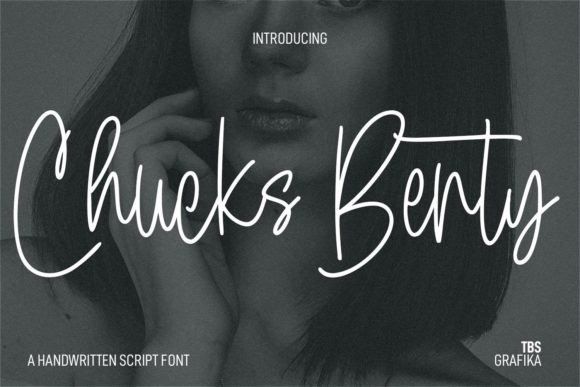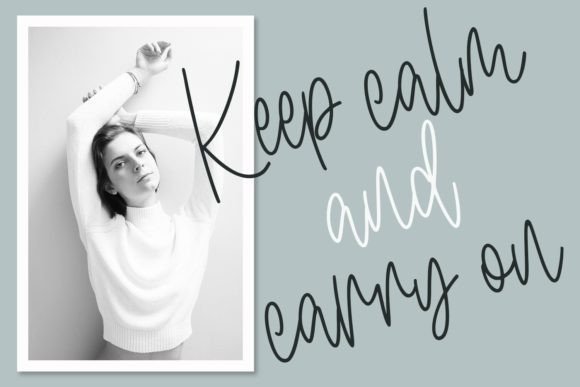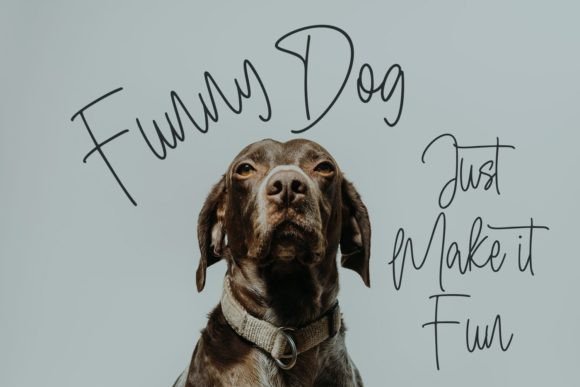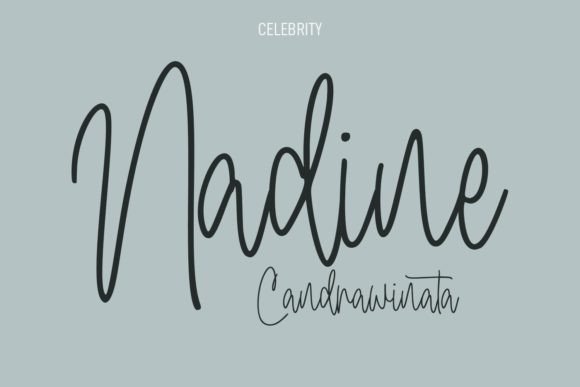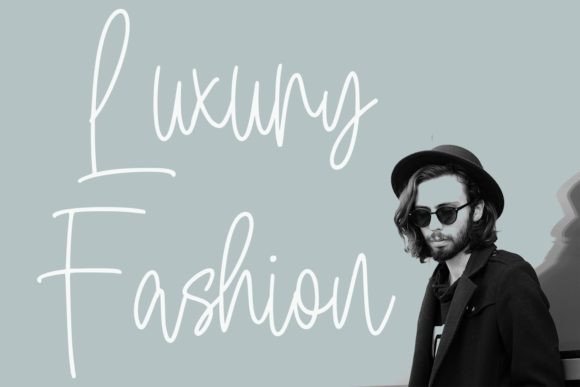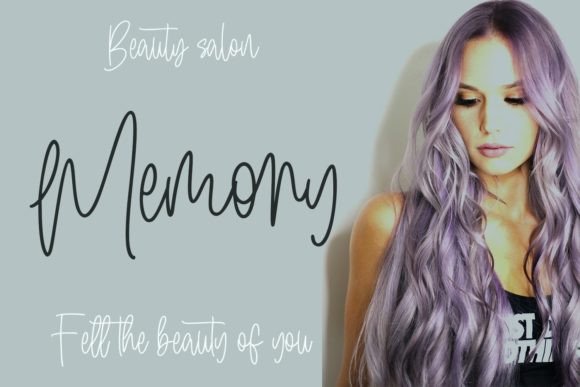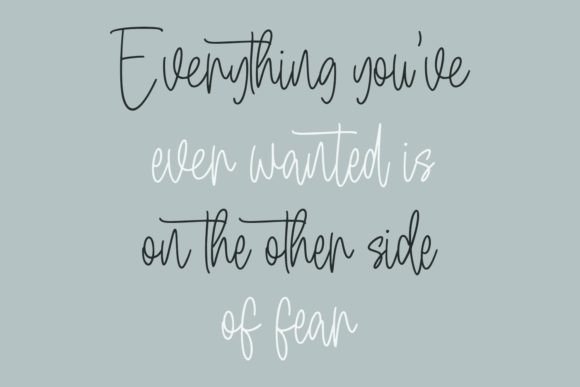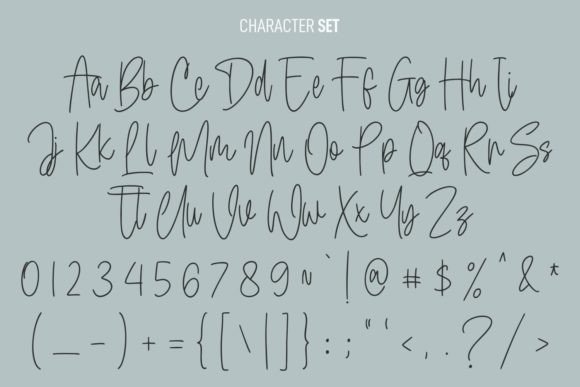
Chucks Berty Font
Chucks Berty is more than just a font; it’s a statement. This modern and stylish handwritten typeface is a valuable addition to any designer’s toolkit. Its versatility knows no bounds, making it the perfect choice for a wide array of projects. Regardless of the topic or theme, Chucks Berty effortlessly infuses a touch of sophistication and creativity into your designs.
What sets Chucks Berty apart is its contemporary flair and unique handcrafted charm. The carefully crafted characters and fluid strokes give your text a sense of authenticity, making it appear as though it was expertly penned by hand. This font adds a personalized touch to your creations, making them stand out in a sea of generic designs.
Whether you’re designing a sleek logo for a high-end brand, creating eye-catching social media posts, or crafting elegant wedding invitations, Chucks Berty is the go-to choice. Its modern aesthetic appeals to a wide audience, making your message easily accessible and engaging. The font’s stylish demeanor makes it suitable for both digital and print media, ensuring your designs look impeccable across various platforms.
Chucks Berty doesn’t just stop at aesthetics; it enhances the overall user experience. Its readability ensures that your audience can effortlessly absorb the content, while its stylish appearance elevates the visual appeal. Whether you’re working on a website, a magazine layout, or a promotional banner, this font guarantees a polished and professional look.
Moreover, Chucks Berty’s adaptability knows no bounds. It seamlessly integrates with other design elements, allowing you to create cohesive and visually pleasing compositions. Experiment with different colors, backgrounds, and layouts to unlock the font’s full potential. Its clean lines and contemporary vibe make it easy to pair with illustrations, photographs, and graphic elements, adding depth and character to your designs.
In summary, Chucks Berty is more than just an asset to your fonts’ library; it’s a game-changer. Its modern and stylish appeal, combined with its versatility and readability, make it an indispensable tool for designers. Embrace the creative freedom that Chucks Berty offers and watch as your designs transform into visually stunning masterpieces that leave a lasting impression on your audience.